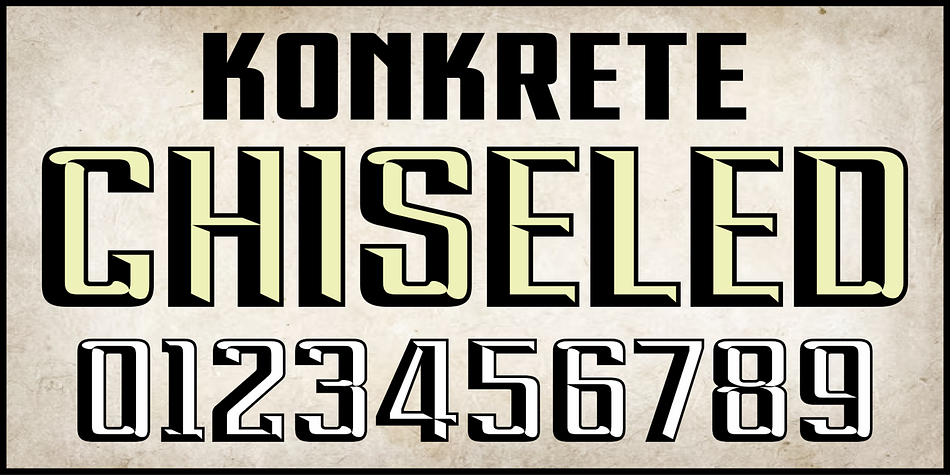
FTY Konkrete
FTY Konkrete is a display and display sans font family. This typeface has ten styles and was published by The Fontry.
The Konkrete Family is a classic gothic narrow in three stances. Okay, one of the versions isn’t so narrow, and one version is a full-blown convex font that can be layered to produce a 3-D effect—simply duplicate the font atop itself and strategically select normal, bold, italic or bold italic from your design program’s style menu. You’ll have the hang of it in little time.